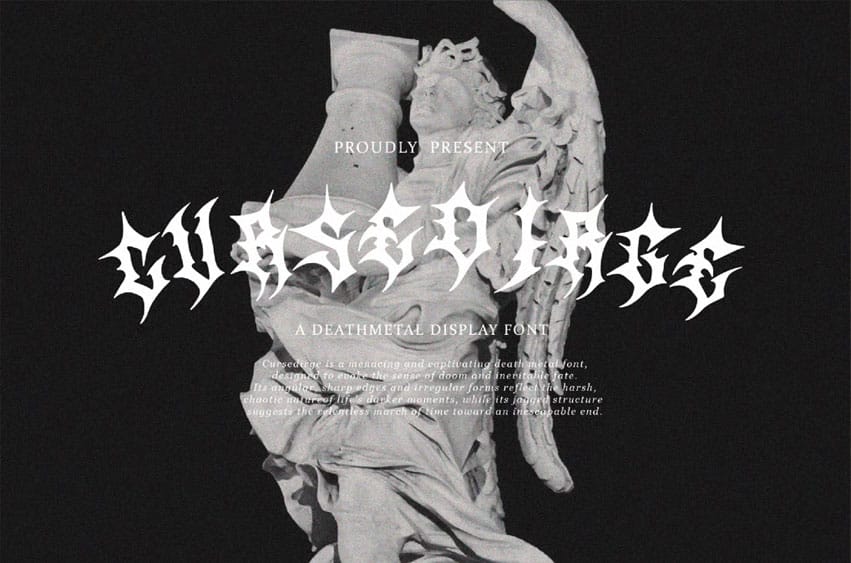
Cursedirge Deathmetal Font is a menacing and captivating death metal font, designed to evoke the sense of doom and inevitable fate.
Its angular, sharp edges and irregular forms reflect the harsh, chaotic nature of life’s darker moments, while its jagged structure suggests the relentless march of time toward an inescapable end.